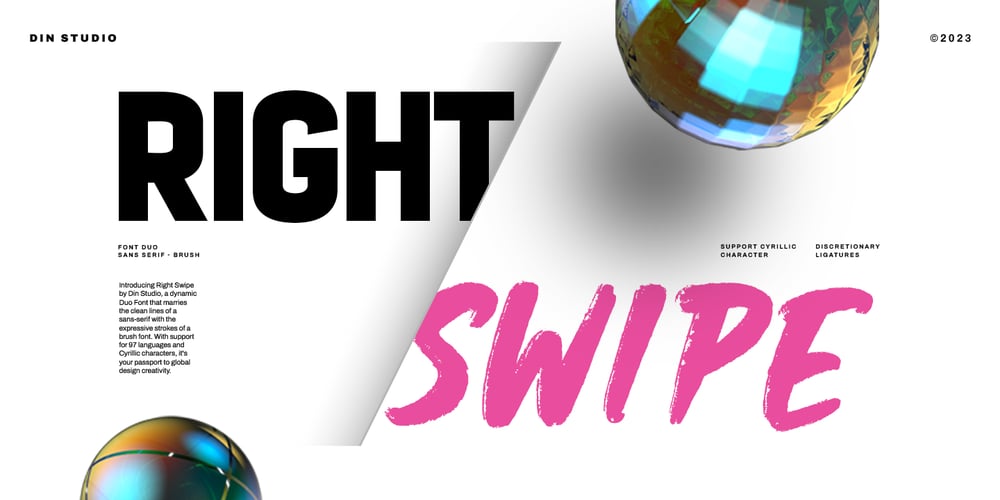
Right Swipe Font Family was designed by Donis Miftahudin and published by Din Studio. Right Swipe contains 2 styles and family package options. Right Swipe is a fantastic sans serif brush font duo. The sans serif font, in the Right Swipe, is the epitome of simplicity and elegance. Designed in uppercase, it boasts clean lines and a minimalist aesthetic, making a versatile look. This sans serif typeface is all about timeless sophistication and modern appeal.In contrast to its sans serif, the brush font adds a touch of creativity and spontaneity to the duo. The brush font’s characters are made in round shapes and consistent proportions, creating a harmonious appearance. Each letter is meticulously crafted with fluid strokes, evoking a sense of warmth and approachability. Together, this duo offers a harmonious balance of elegance and creativity. This combination of a simple and refined sans serif font with a warm and inviting brush font allows you to strike the perfect tone for your design projects. In addition, enjoy the features here.Features: Multilingual Supports PUA Encoded Numerals and Punctuations Right Swipe fits in headlines, logos, posters, flyers, branding materials, print media, editorial layouts, and many more vintage-inspired designs. Find out more ways to use this font by taking a look at the font preview.Thanks for purchasing our fonts. Hopefully, you have a great time using our font. Feel free to contact us anytime for further information or when you have trouble with the font. Thanks a lot and happy designing.